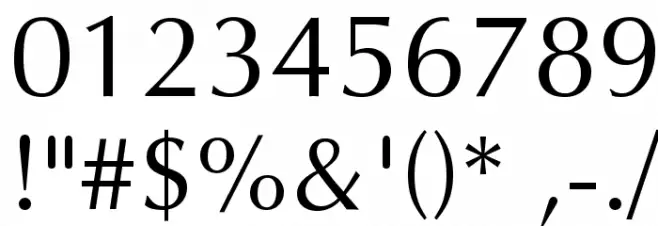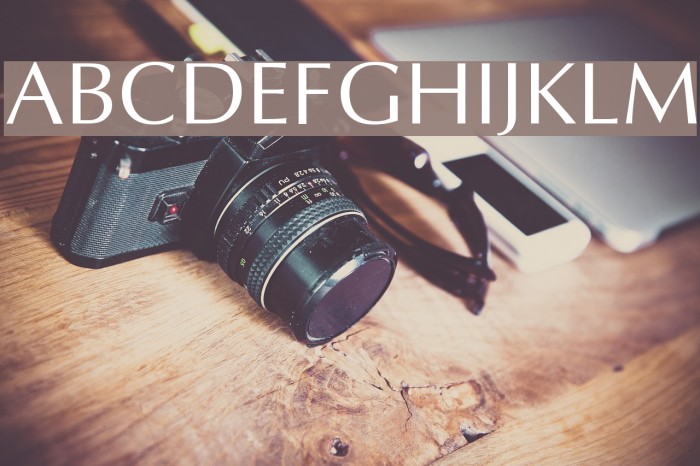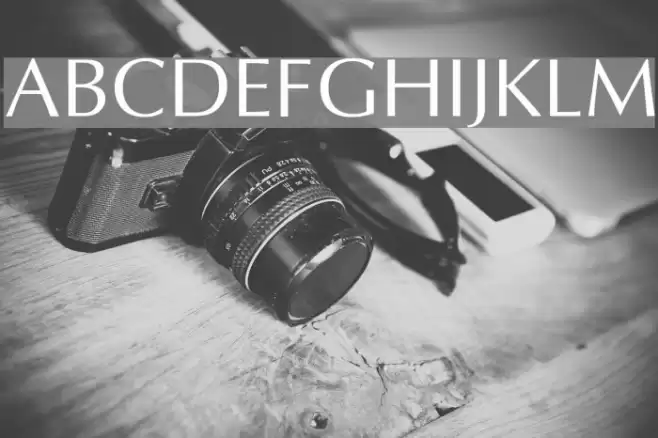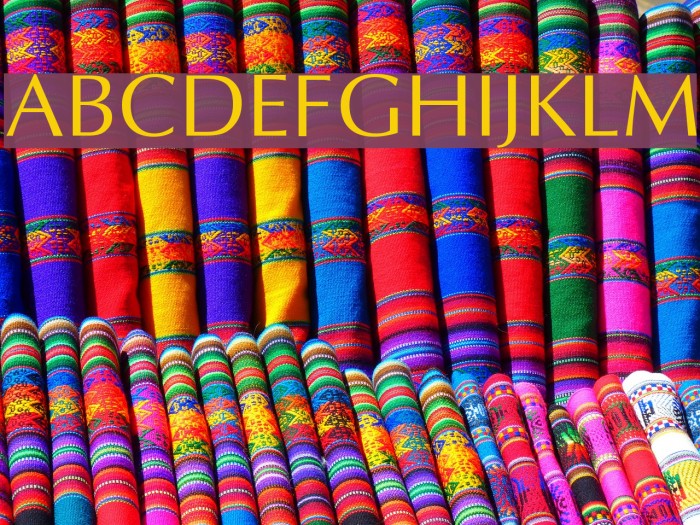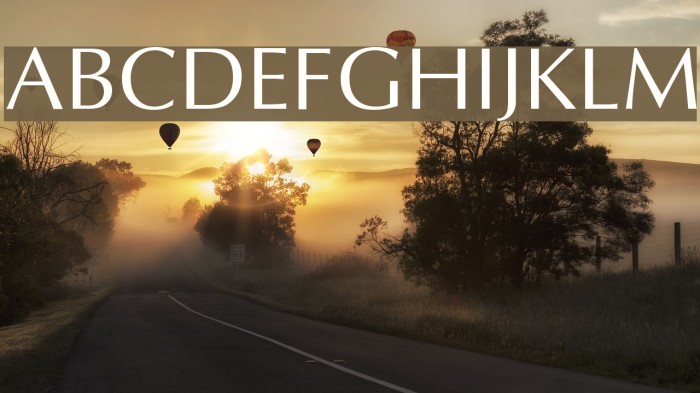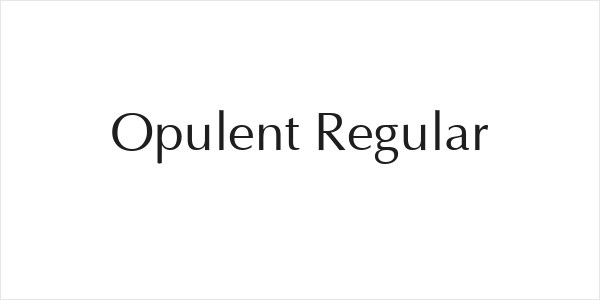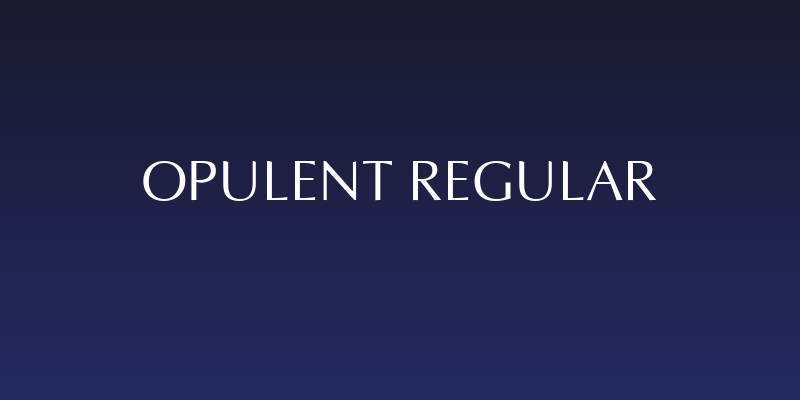
Opulent Regular Font
Opulent Regular Description
This font exudes a sense of elegance and sophistication with its clean, sharp lines and balanced proportions. The uppercase letters are tall and commanding, while the lowercase letters maintain a harmonious flow. The numerals are clear and distinct, ensuring readability. Special characters are thoughtfully designed, complementing the overall aesthetic. The font's modern style is evident in its minimalistic approach, making it versatile for various applications. Its refined appearance is suitable for both digital and print media, offering a timeless appeal.